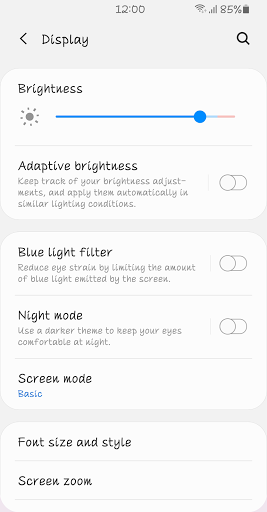
CatRed™ Latin Flipfont
CatRed™ Latin Flipfont is that expresses passionate and vibrant red energy.
Let's start a wonderful day with CatRed™ Latin Flipfont